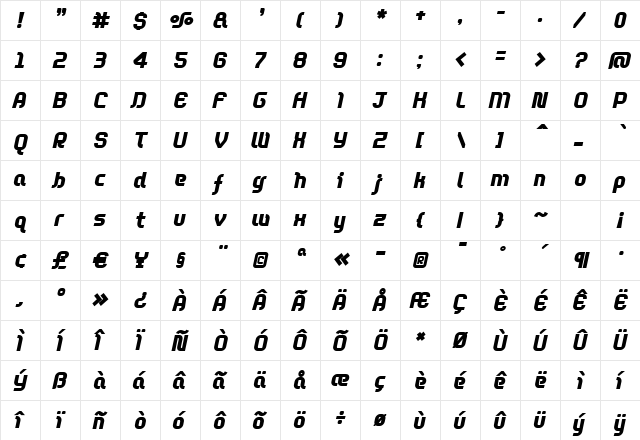
DieppeBold Oblique Regular Font Preview
Design Context for DieppeBold Oblique Typeface
DieppeBold Oblique is a composed and adaptable typeface that performs quietly and consistently across a wide range of design contexts. The dynamic lean of this cut emphasises speed and emphasis in any layout. The heavy weight commands attention and anchors typographic hierarchies.